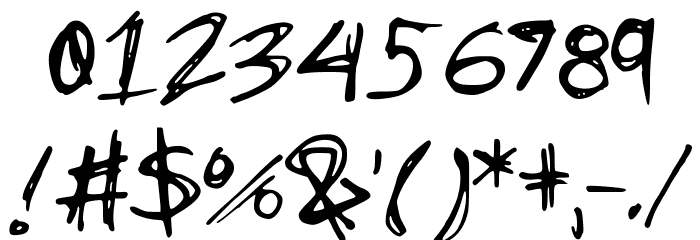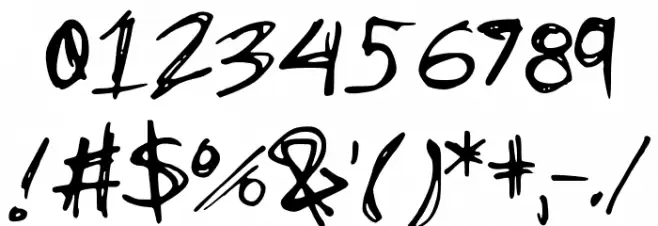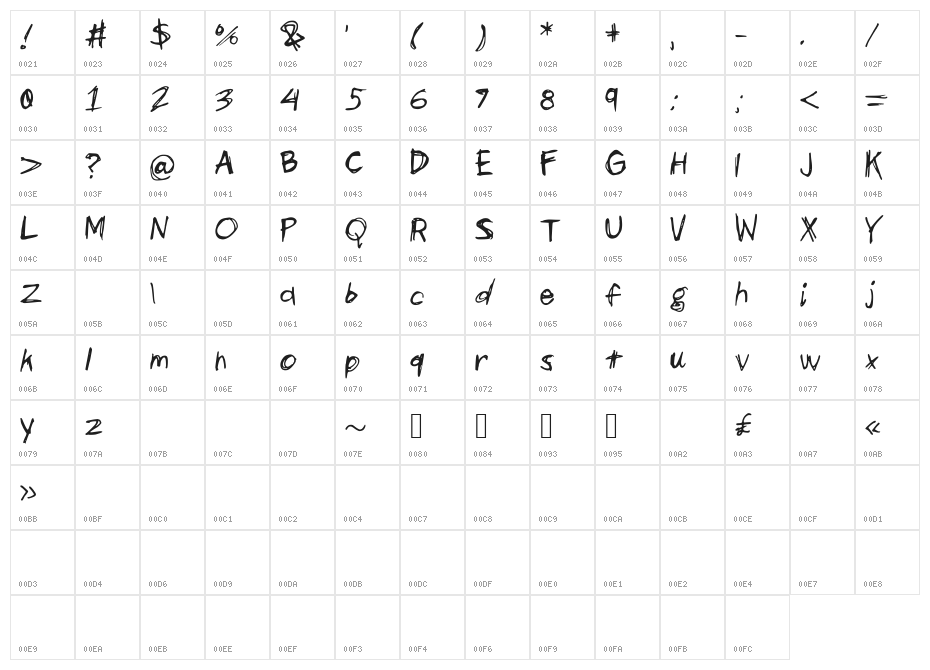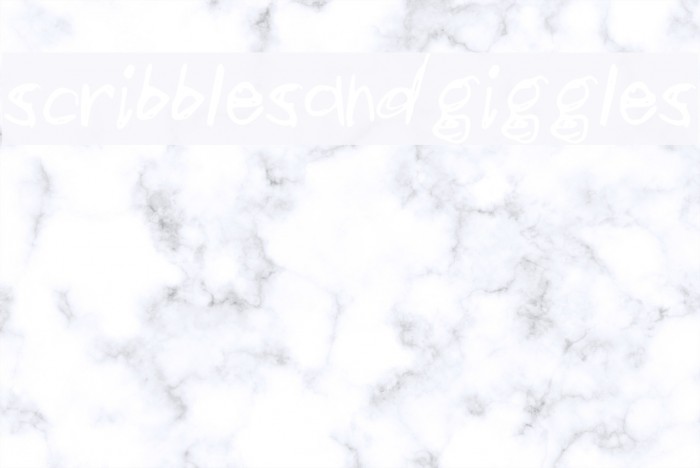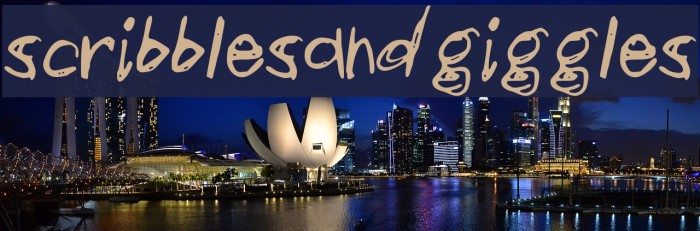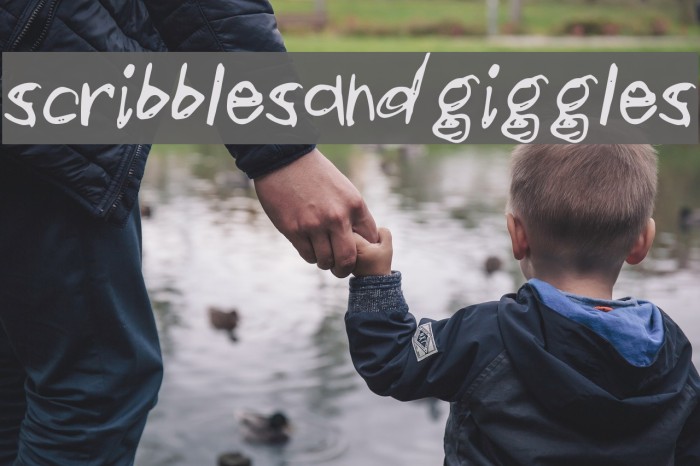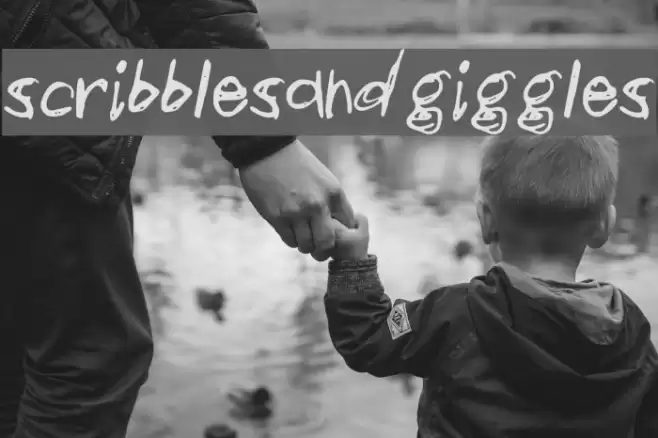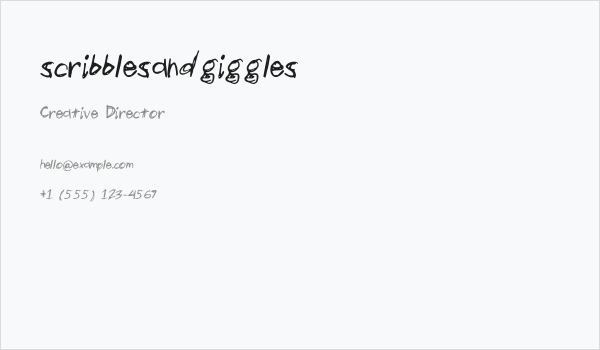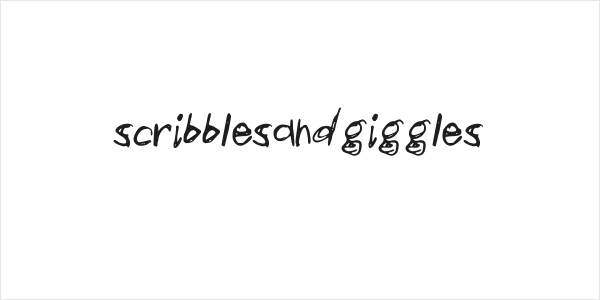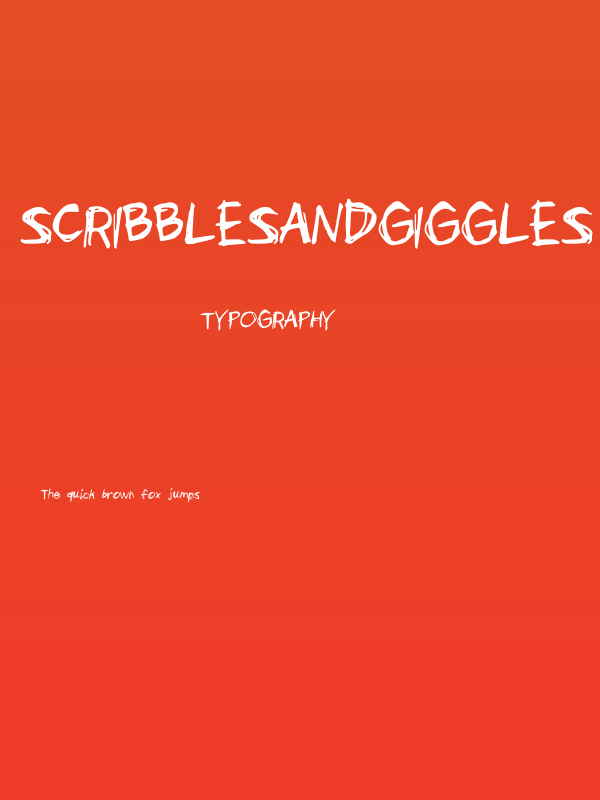
scribblesandgiggles Font
scribblesandgiggles Description
This playful and energetic font features a hand-drawn, scribbled style that exudes a sense of fun and spontaneity. The characters are irregular and dynamic, with varying stroke thicknesses that give it a lively, informal appearance. The uppercase and lowercase letters maintain a consistent whimsical flair, while the numerals and special characters complement the overall design with their quirky, freeform shapes. This font captures a sense of creativity and joy, making it ideal for projects that aim to convey a lighthearted and approachable tone.
| Proposed Projects | Ideal for children's books, playful branding, casual invitations, and creative posters. |